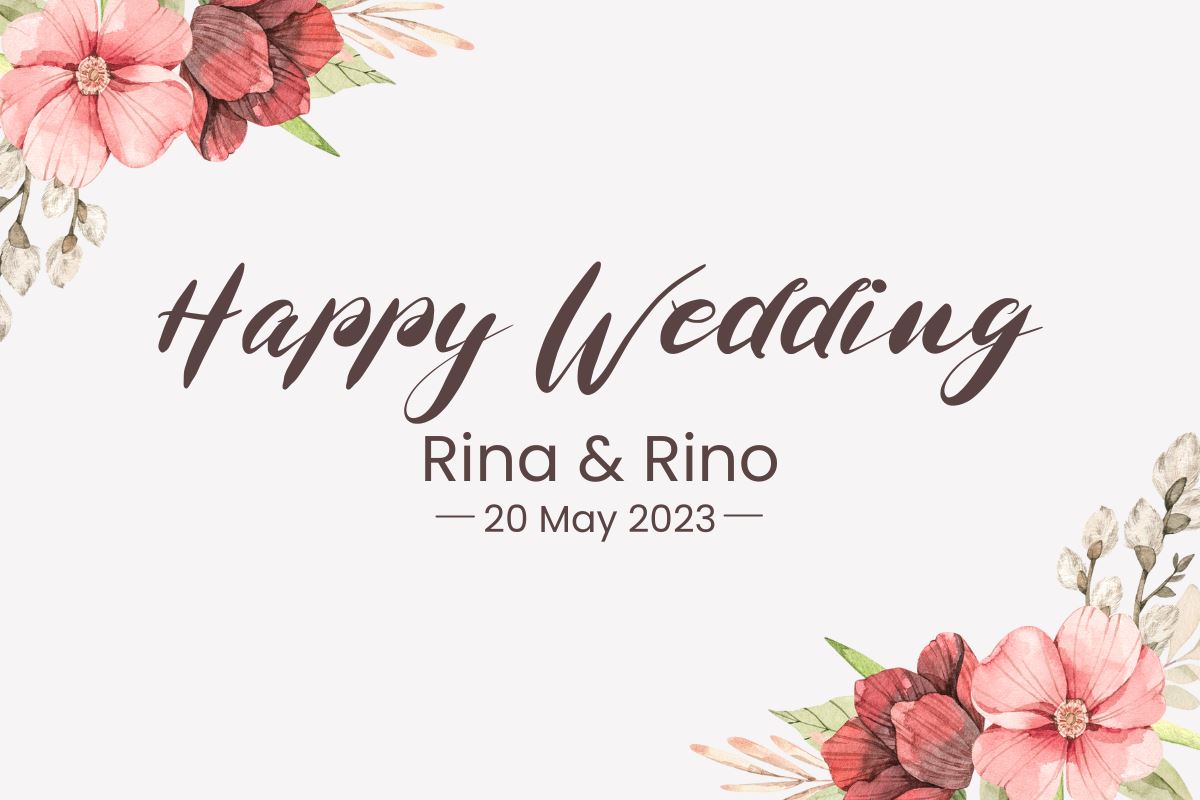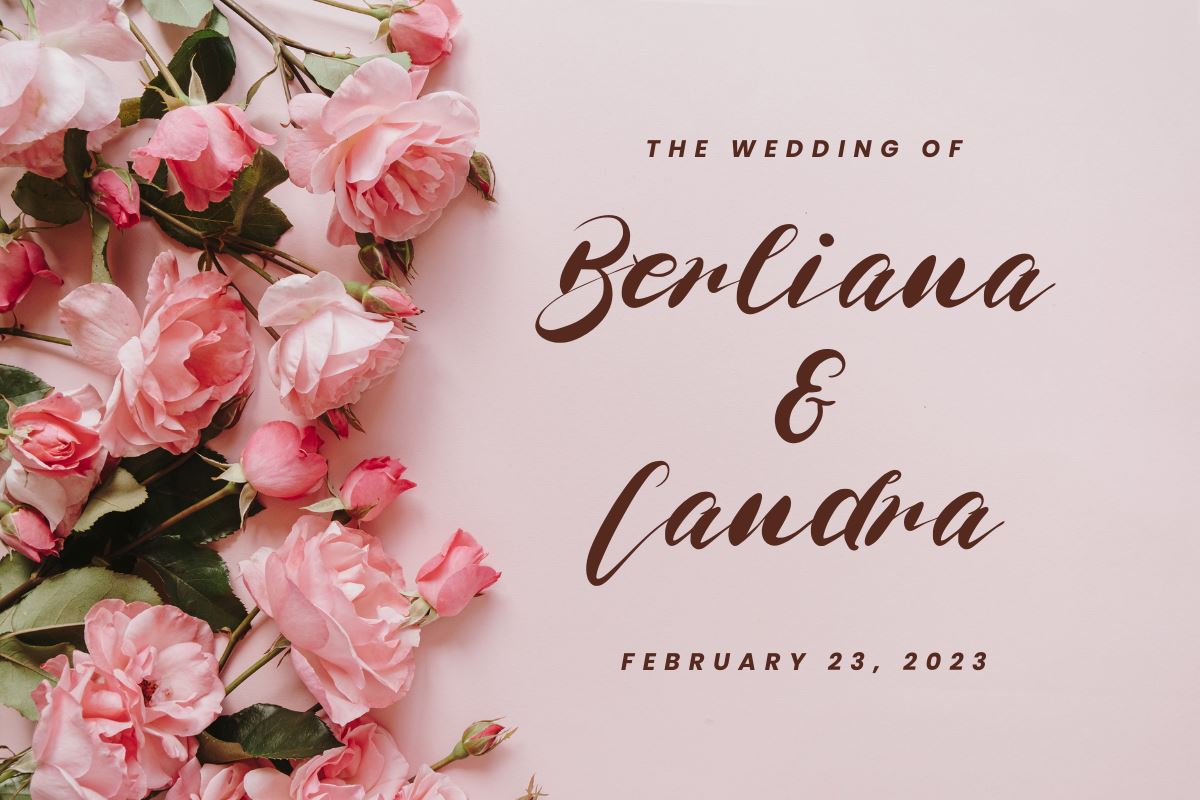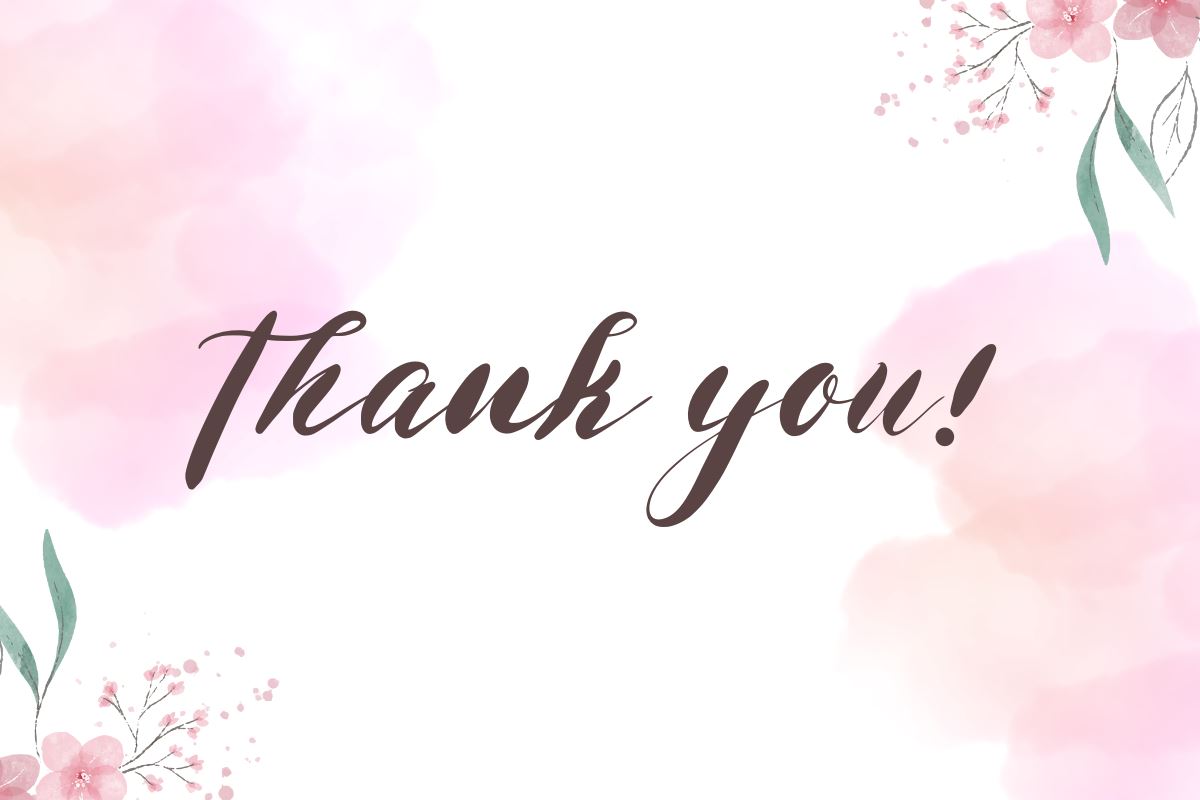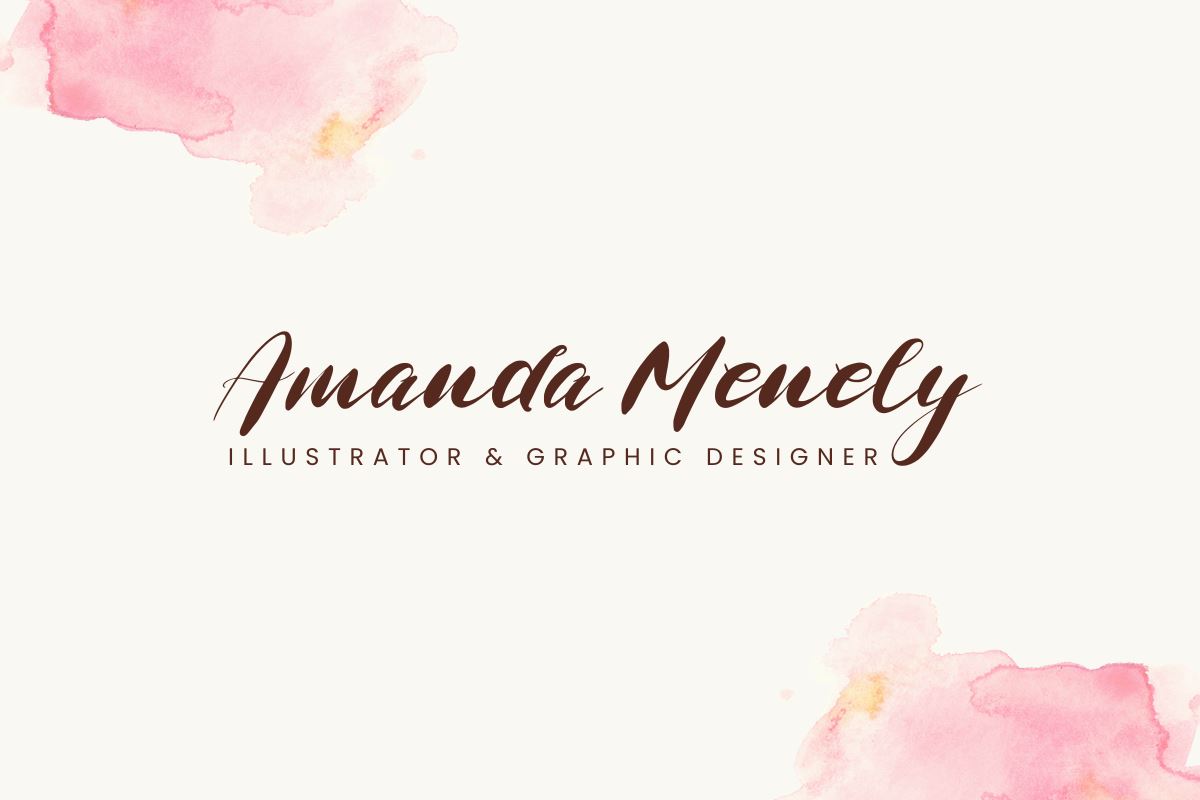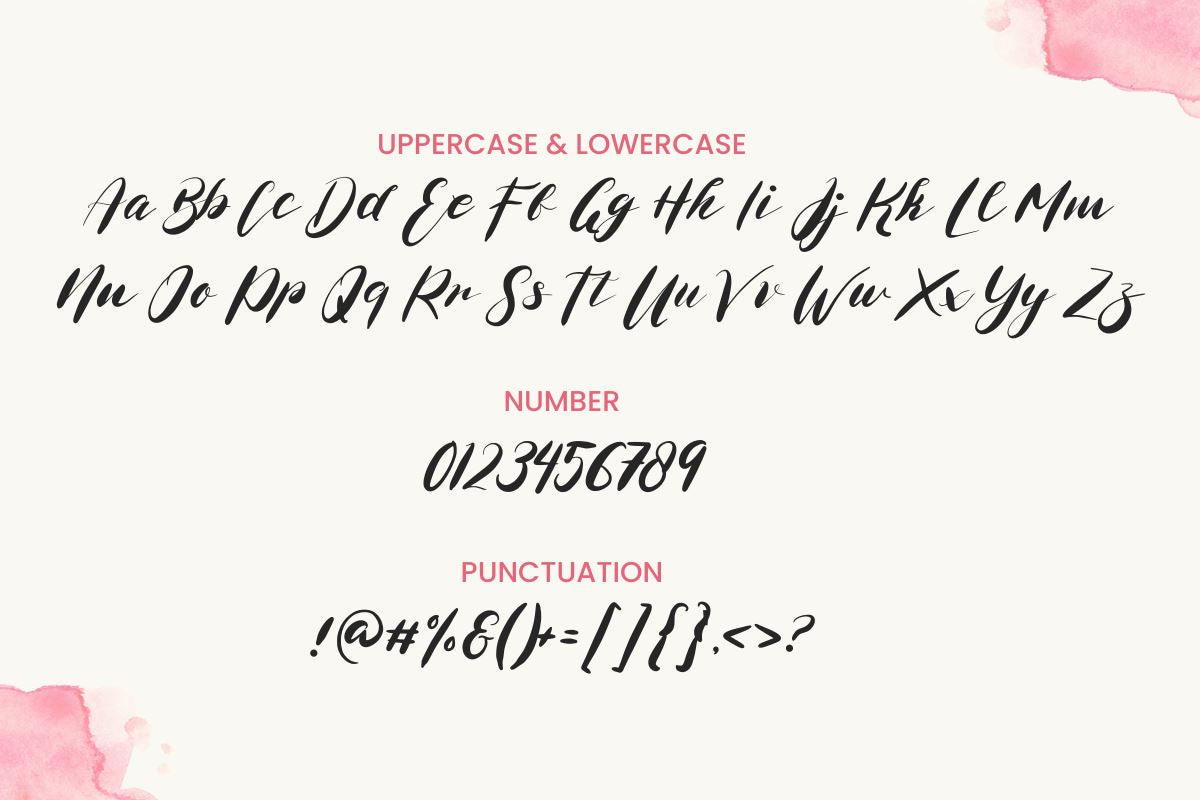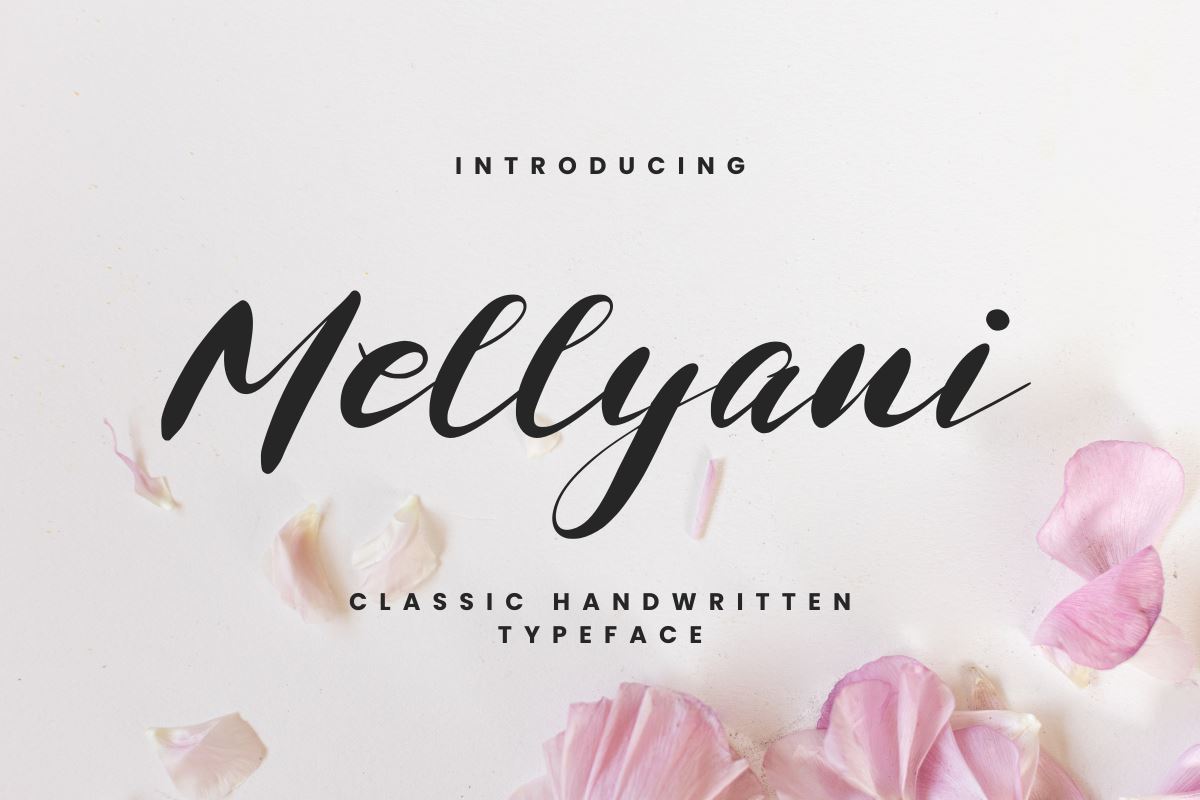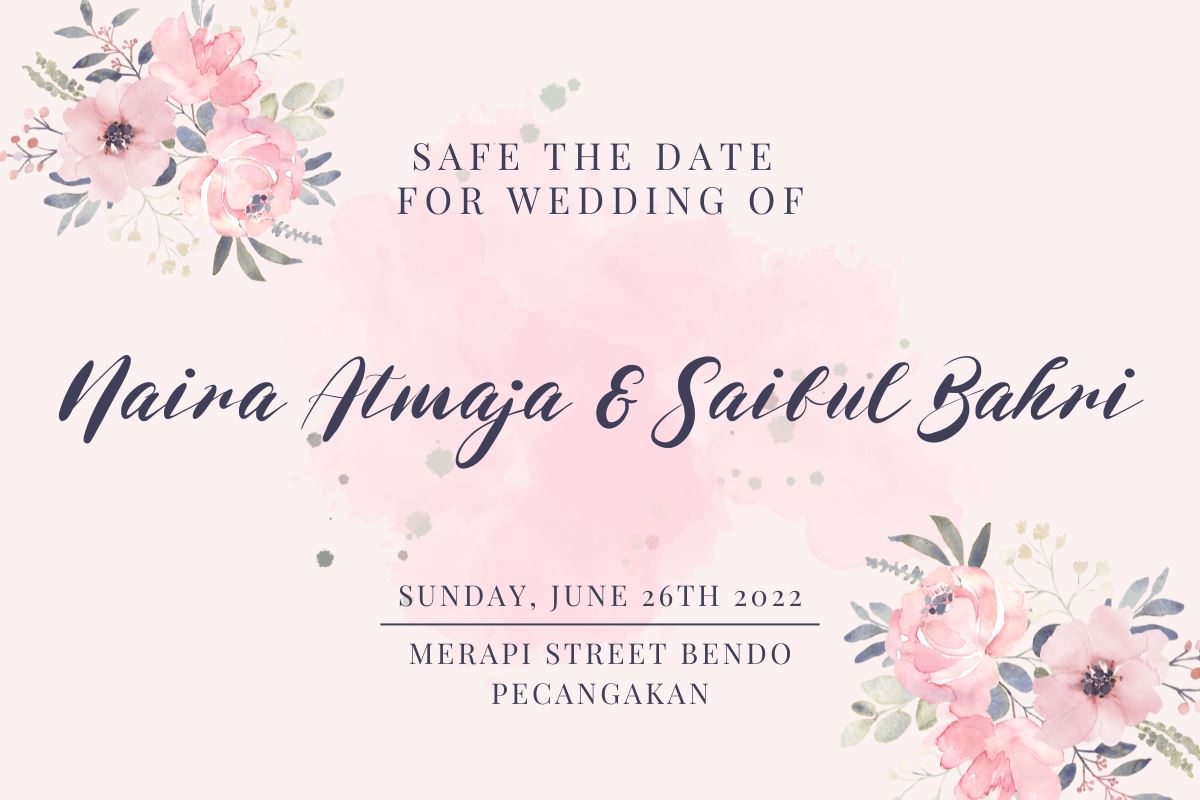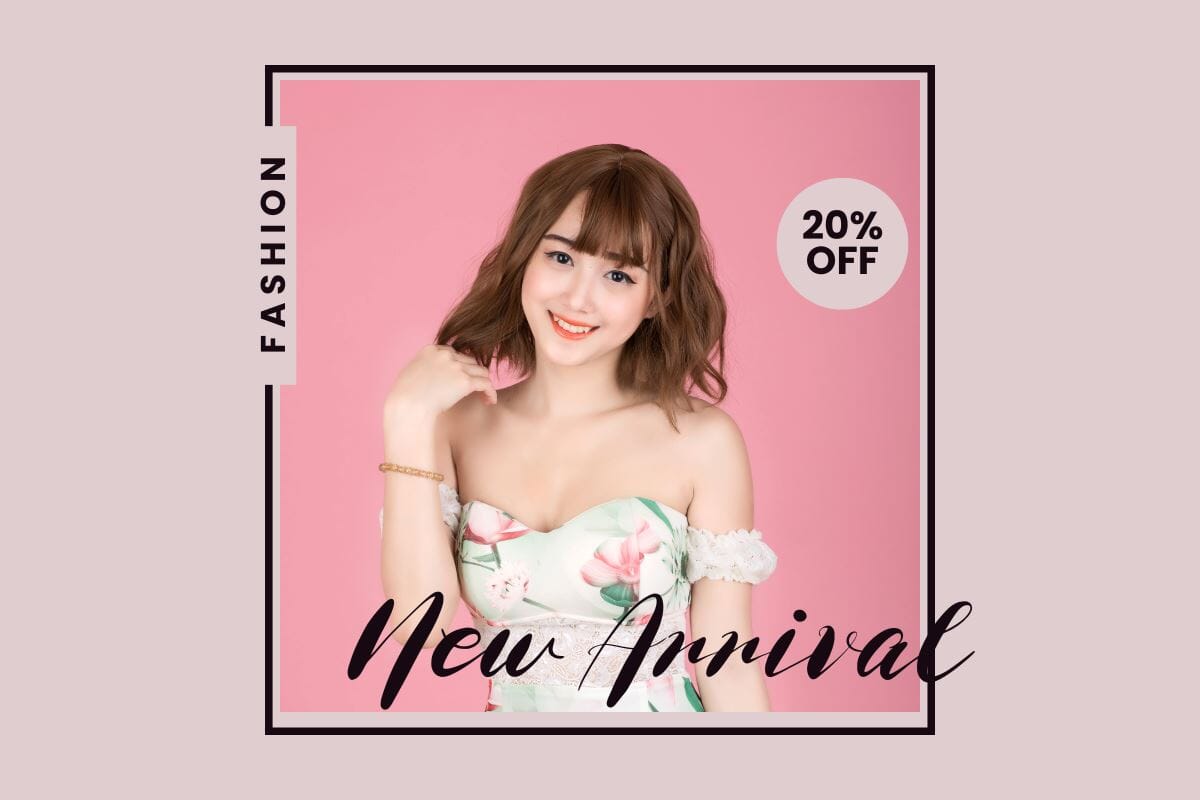
Mellyani – Classic Handwritten Typeface
Mellyani is a Handwritten font that will make your designs look unique and fun. It’s perfect for labels, quotes, posters, DIY projects, branding, packaging, greeting cards, websites, photographic overlays, signs, window art, scrapbooking, tags and more! What’s Included : Mellyani (OTF/TTF/WOFF) Standard glyphs Web Font Works on PC & Mac Simple installations Accessible in the Adobe Illustrator, Adobe Photoshop, Adobe InDesign, even work on Microsoft Word. PUA Encoded Characters – Fully accessible without additional design software. Fonts include multilingual support Image used : All photographs/pictures/vector used in the preview are not included, they are intended for illustration purpose only. Thank You